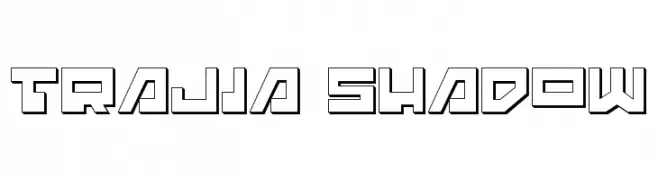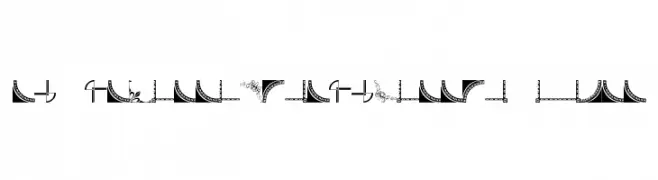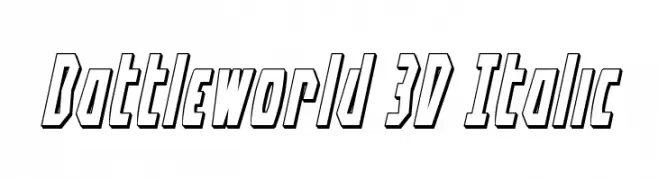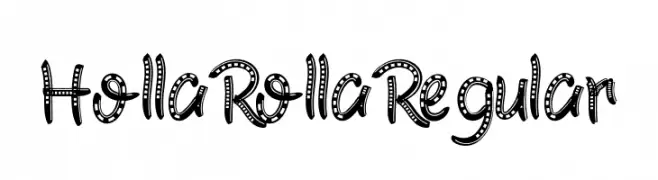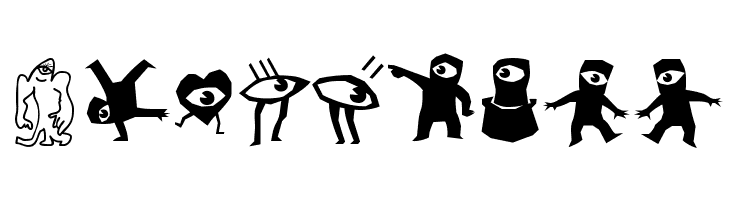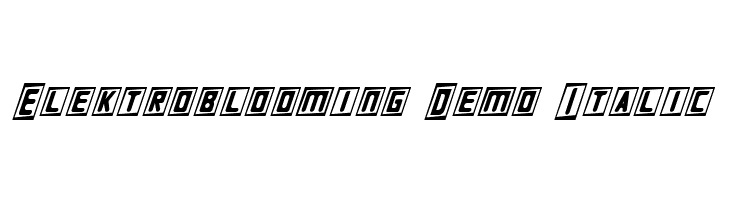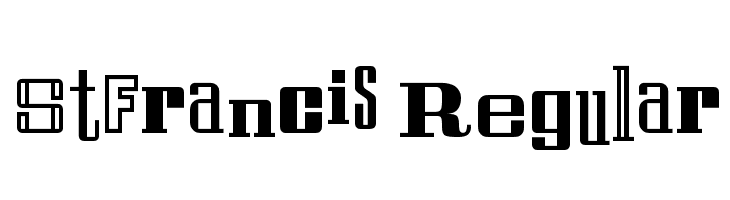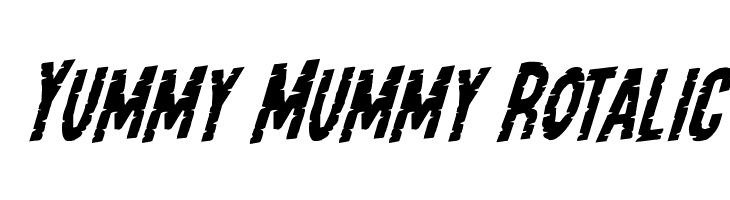
Halloween-themed decorative font with illustrated characters.
A futuristic, angular font with a bold and geometric style.
A bold, geometric font with a three-dimensional shadow effect.
A bold, playful font with rounded, whimsical letterforms.
A sleek, italicized font with a modern and elegant style.
A playful, decorative font with bold, hand-drawn letters featuring dotted embellishments.